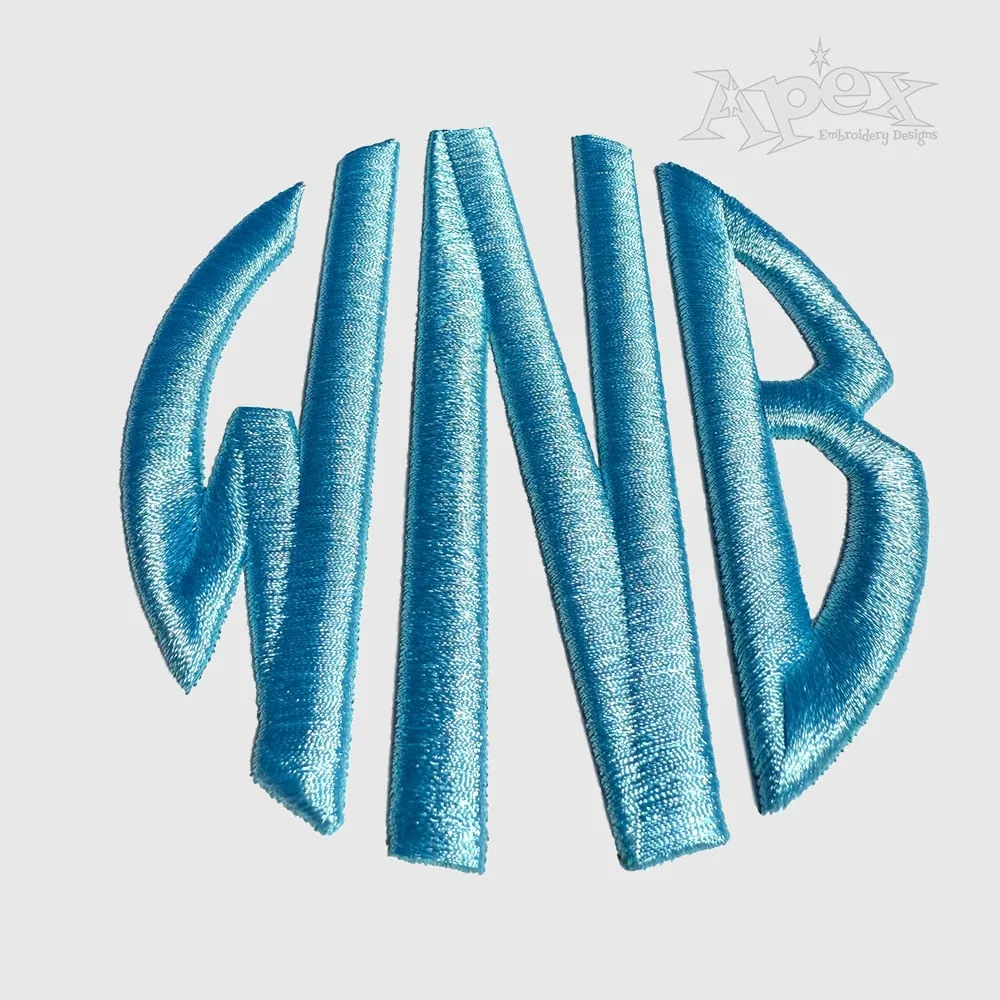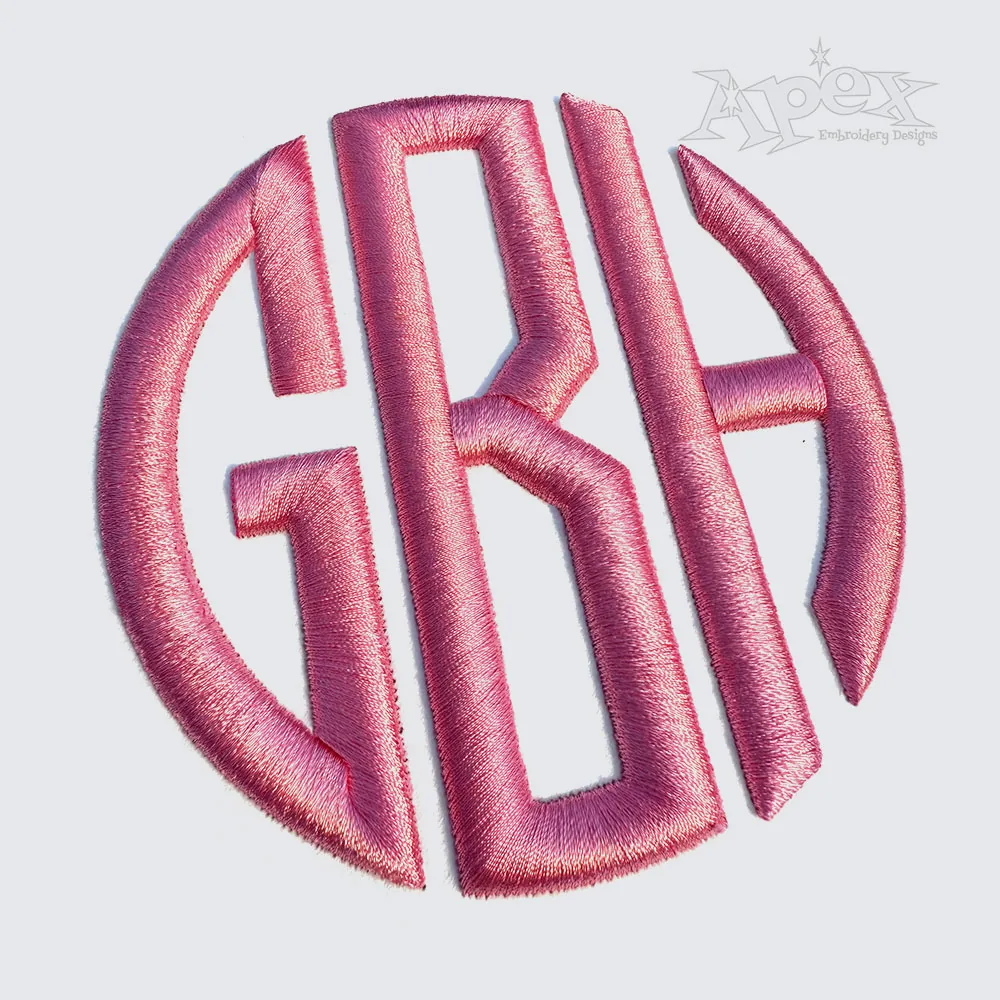
Circle Full 3-D Puff Embroidery Fonts
There is an undeniable tactile magic when thread transcends the flat surface of fabric and rises into true sculptural relief. Born from our obsession with bold architectural symmetry and vintage athletic insignia, the Circle Full 3-D Puff Embroidery Font redefines traditional custom monogramming. When layered over dimensional craft foam, the threads draw taut, catching ambient light across every curve and transforming a classic three-letter medallion into an authoritative emblem of heritage style.
Designed to scale effortlessly across diverse projects, this versatile monogram suite is precision-digitized in three distinct heights:
- 2.0 Inch (50 mm): Digitized in dense, high-tension satin stitches tailored for compact cap crowns, pockets, and accessories.
- 3.0 Inch (75 mm): Rich satin architecture providing dramatic loft and immaculate edge definition for mid-scale placements.
- 4.0 Inch (100 mm): Artfully engineered using structural step stitches (tatami fill) rather than oversized satins, preventing snagging and ensuring flawless thread tension across broad spans.
Project Ideas for Circle Full 3-D Puff Embroidery Fonts
- Structured Headwear: Crisp, professional high-relief lettering on snapbacks, trucker caps, and fitted baseball hats.
- Varsity & Outerwear Accents: Bold chest crests or nape placements on heavyweight fleece hoodies, coach jackets, and wool bomber jackets.
- Heavyweight Travel Canvas: Eye-catching personalized monograms on rugged weekender duffels, boat totes, and golf gear.
- Bespoke Streetwear & Loungewear: Dimensional branding on custom denim jackets, sweatpants pockets, and collegiate-inspired gifts.
- Personalized Gifting: Striking heirloom keepsakes for groomsmen, graduates, and sports enthusiasts who appreciate tactile, bold embroidery.
- Cap Center Front: Positioned across the split seam of structured buckram crowns, where the 2-inch and 3-inch sizes sit with commanding presence.
- Left Chest Herald: Placed 7 to 8 inches down from the shoulder seam on outerwear or fleece, delivering balanced athletic polish.
- Upper Back Center: Centered beneath the collar on denim jackets or heavy coats using the expansive 4-inch scale for an editorial finish.
- Accessory Pocket Panels: Centered on tote slip pockets or canvas utility bags to anchor the item with bespoke distinction.
Circle Full 3-D Puff Embroidery Fonts Craft & Letterform Details
Digitizing for three-dimensional puff embroidery requires vastly different mechanics than standard flat stitchery. Every letterform in this circle monogram has been meticulously plotted with specialized underlay, calculated pull compensation, and reinforced end-cappings designed to cleanly cut underlying foam without tearing it prematurely. The flanking left and right characters curve gracefully around the commanding central glyph, their bevels engineered to draw the eye into an unbroken, harmonious circular silhouette. In the larger 4-inch iteration, moving to deliberate step stitches ensures that the expansive surface maintains clean, firm geometry, giving you professional, store-bought luxury straight from your embroidery machine.